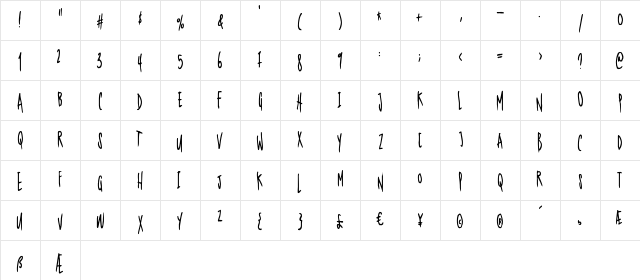
Nerdproof Regular
Design Context for Nerdproof Typeface
Nerdproof is a composed and adaptable typeface that performs quietly and consistently across a wide range of design contexts.